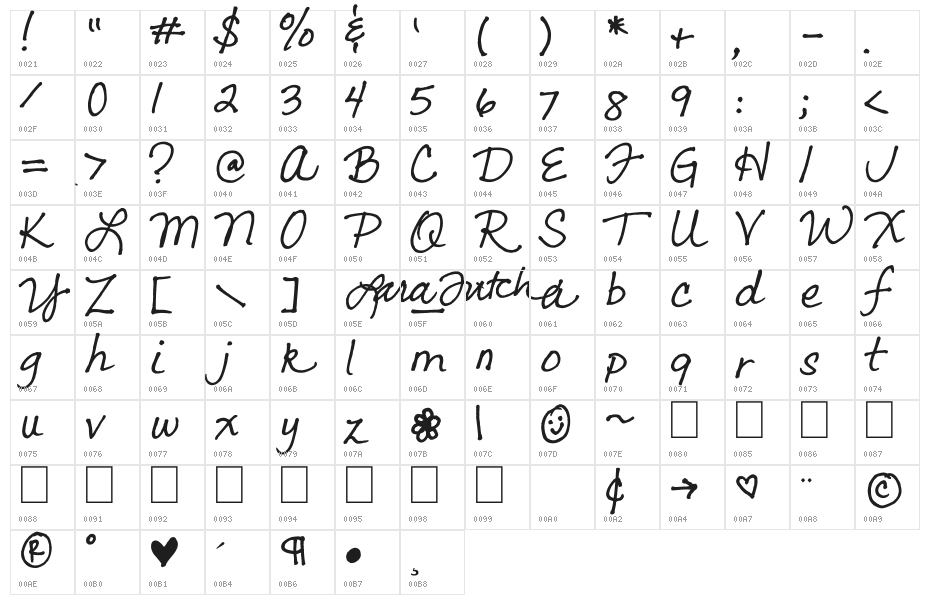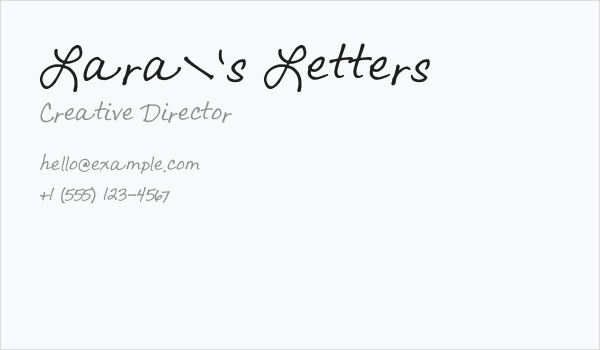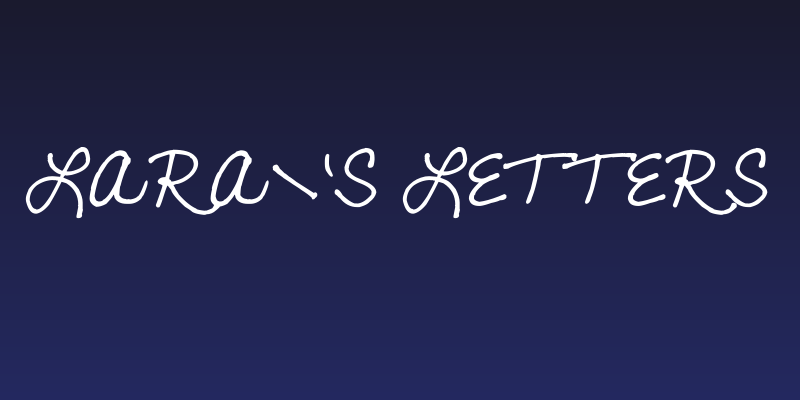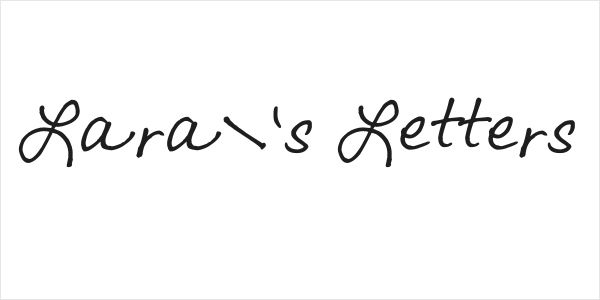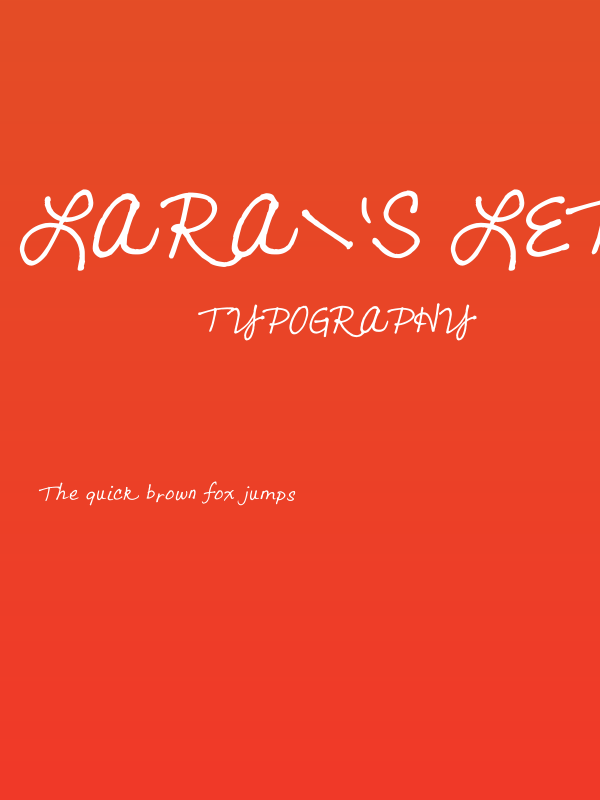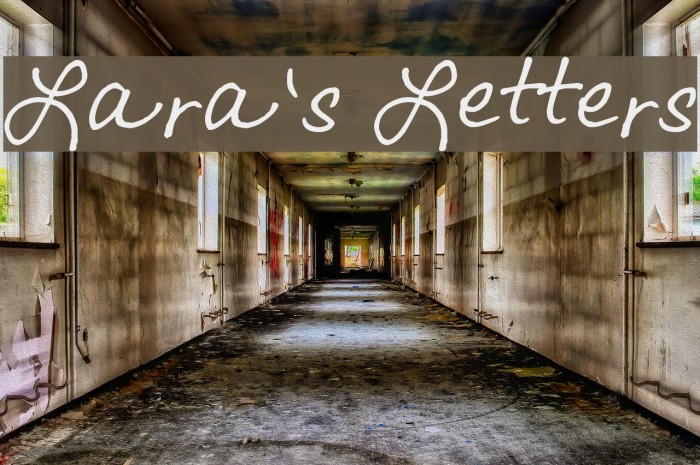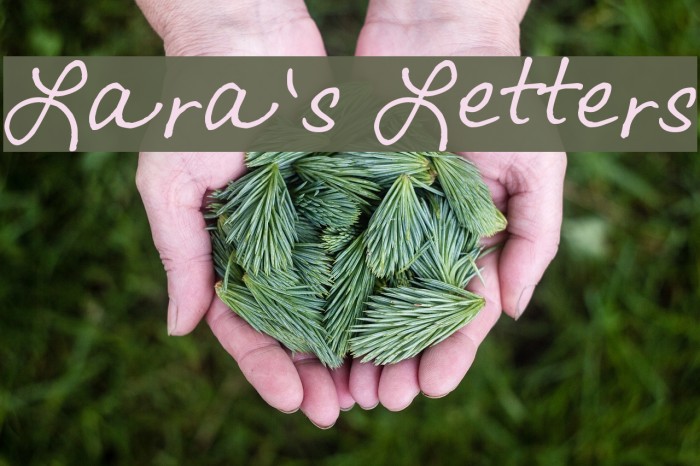
Lara's Letters Font
Lara's Letters Description
This font features a handwritten style with a casual and flowing appearance. The uppercase letters are slightly larger and more pronounced, while the lowercase letters maintain a consistent, smooth flow. The numerals are bold and clear, matching the overall aesthetic of the font. Special characters are integrated seamlessly, maintaining the handwritten feel. The strokes are moderately thick, providing a balanced contrast that enhances readability. This font is ideal for projects that require a personal touch, such as invitations, greeting cards, or creative branding materials.
| Overall Style | Casual, Handwritten |
| Proposed Projects | Ideal for invitations, greeting cards, personal branding, and creative projects. |